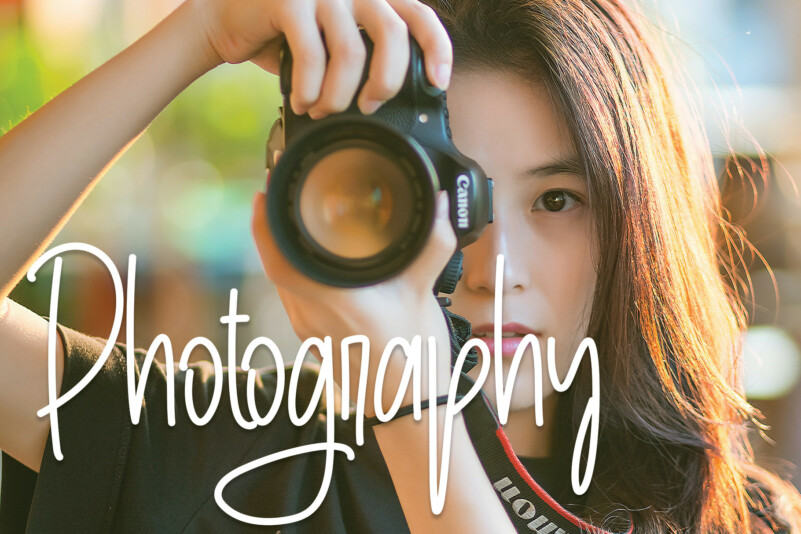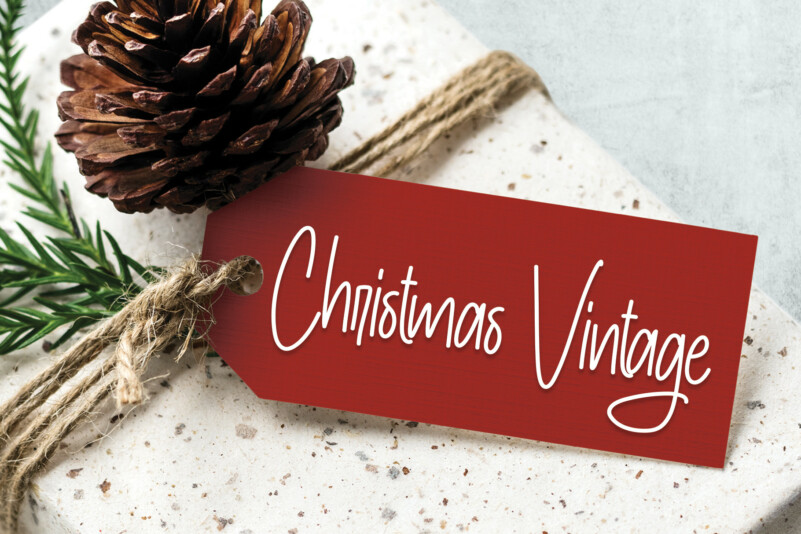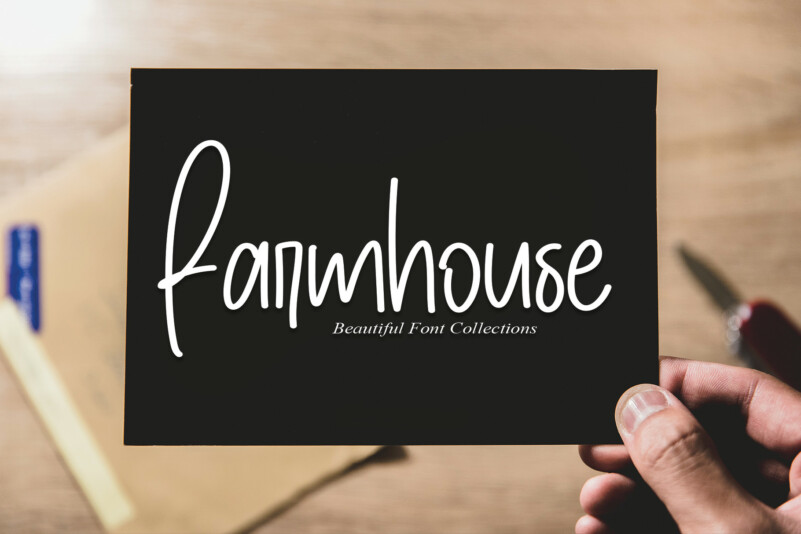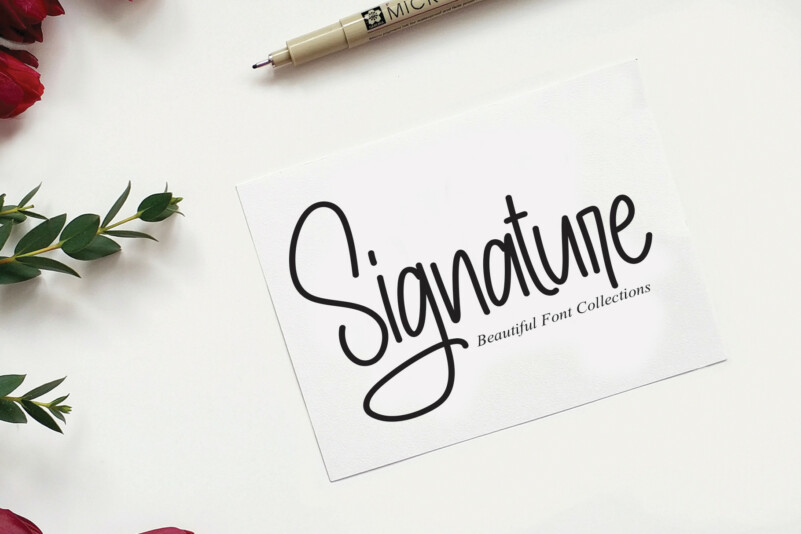
Wedding Vintage Script Font
Wedding Vintage Script Font is a fun and casual handwritten font. Whether you’re using it for crafts, digital design, presentations, or making greeting cards, this font has the potential to become your favorite go-to font, no matter the occasion!